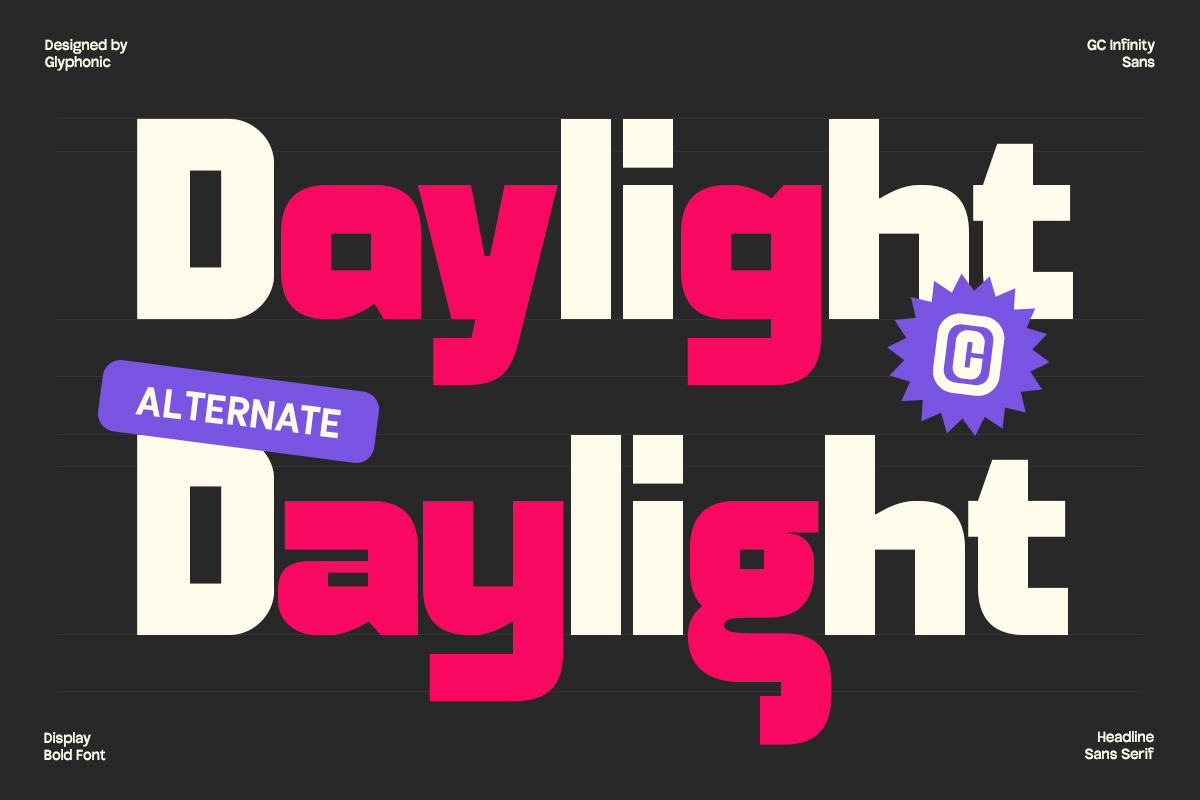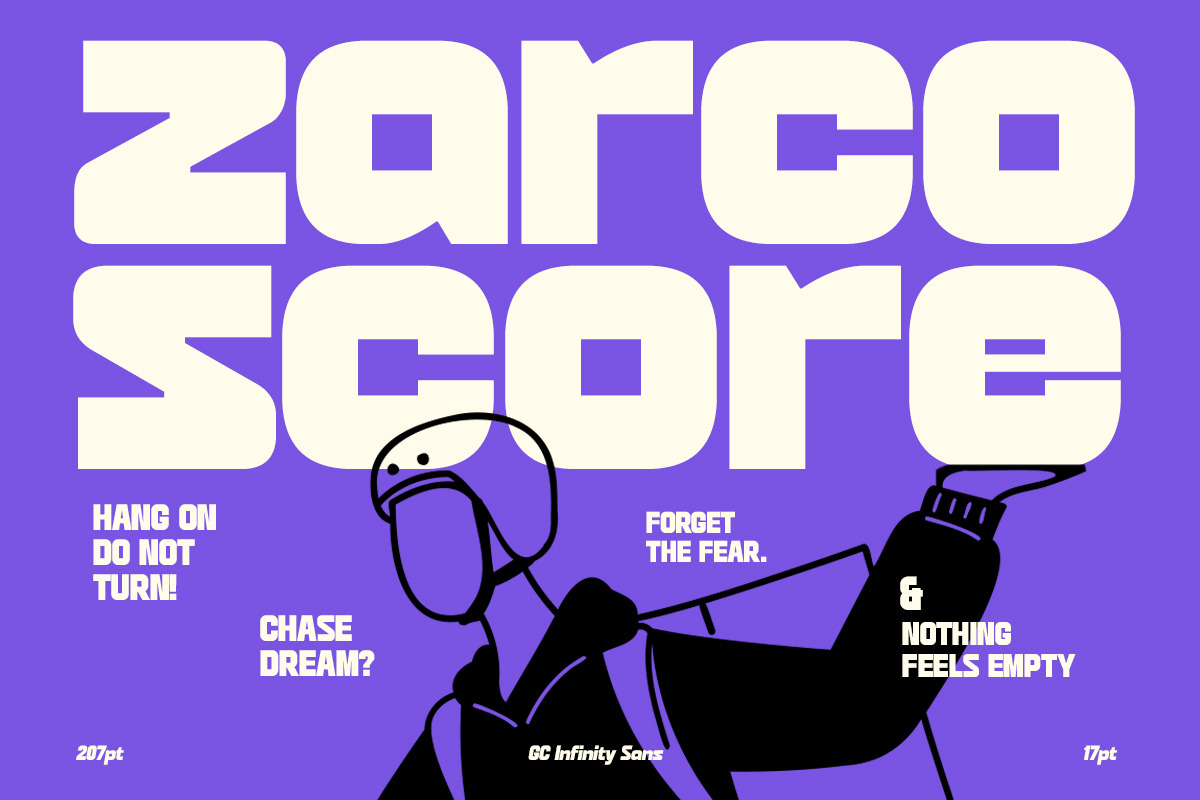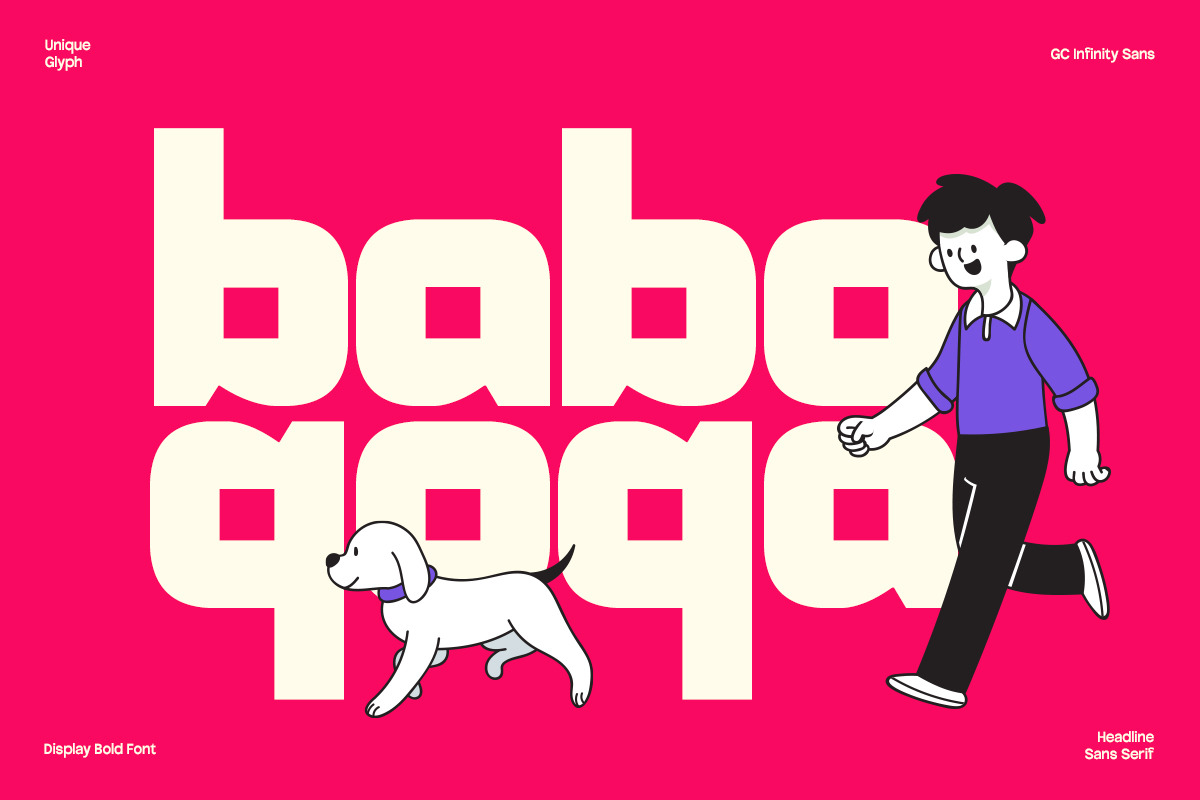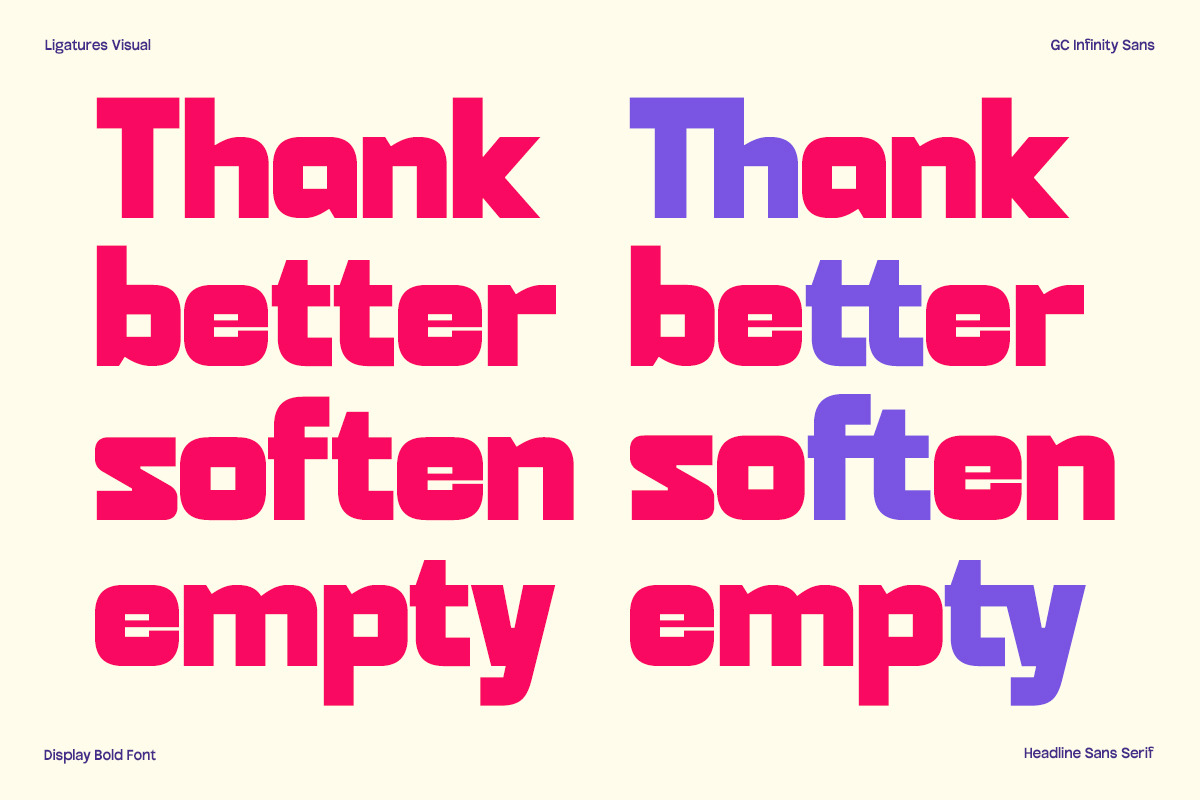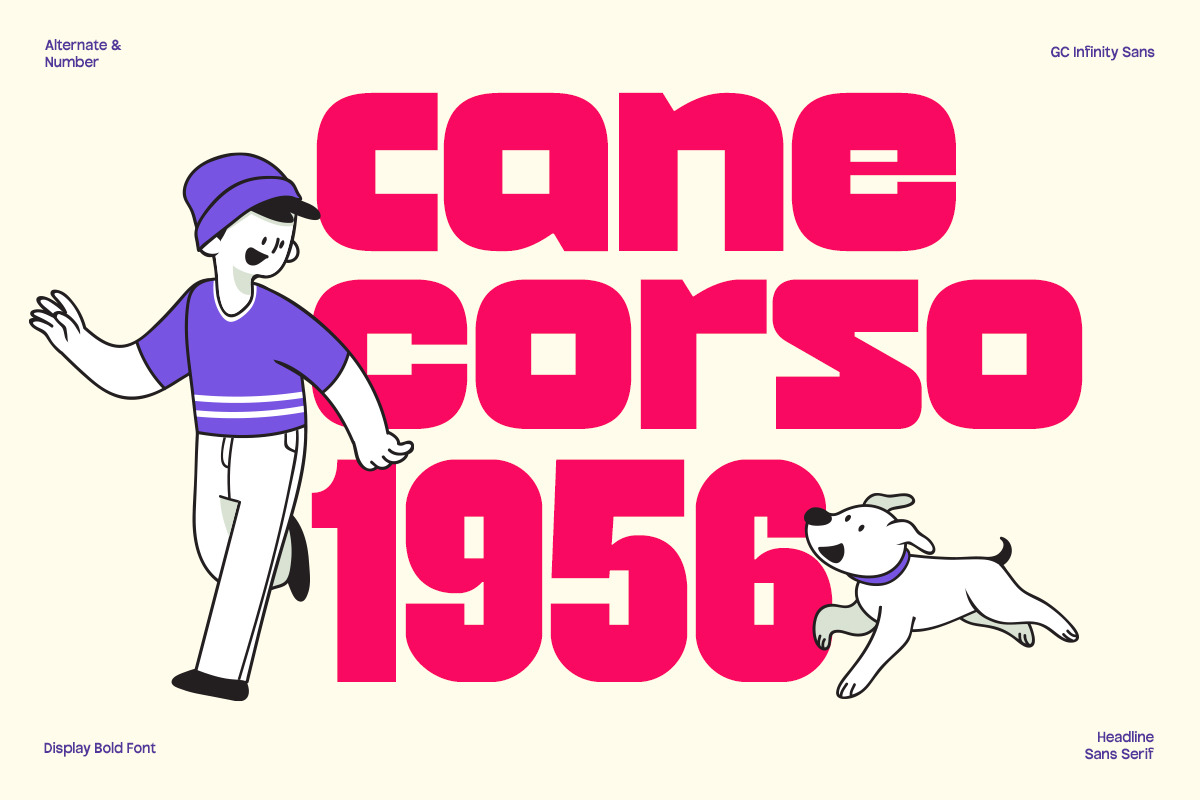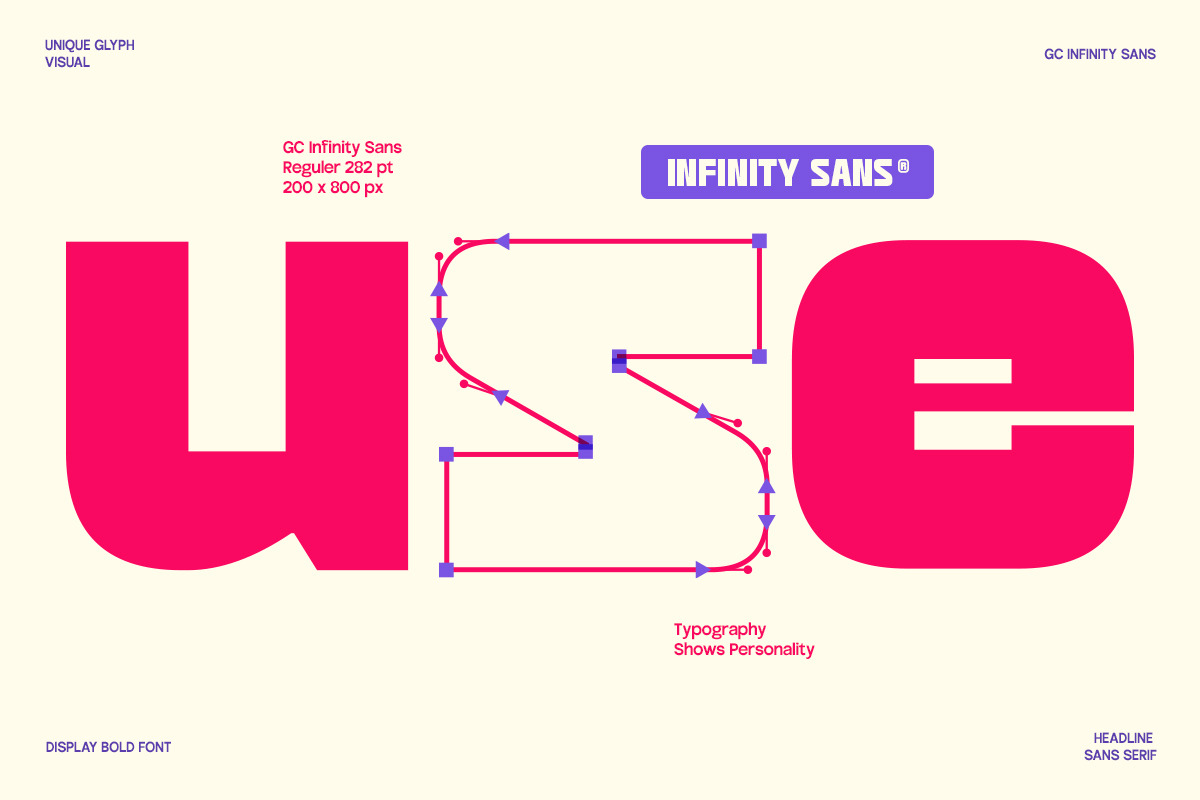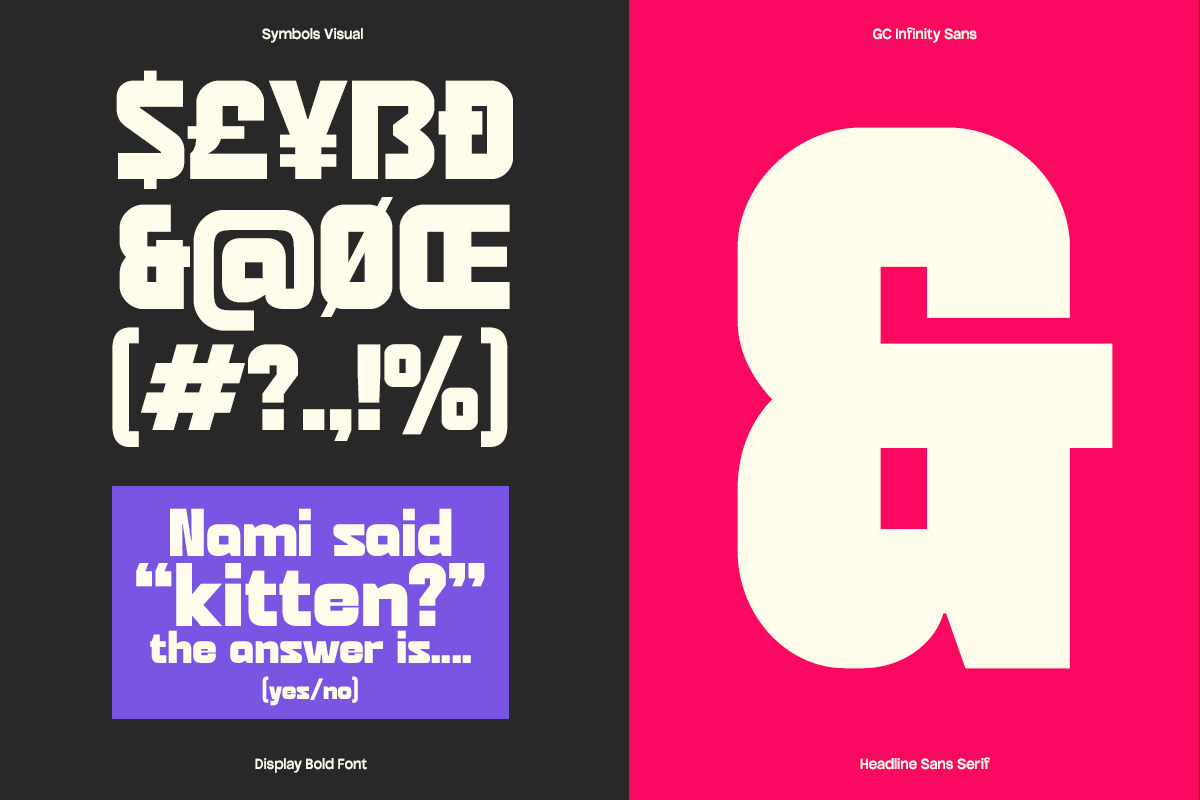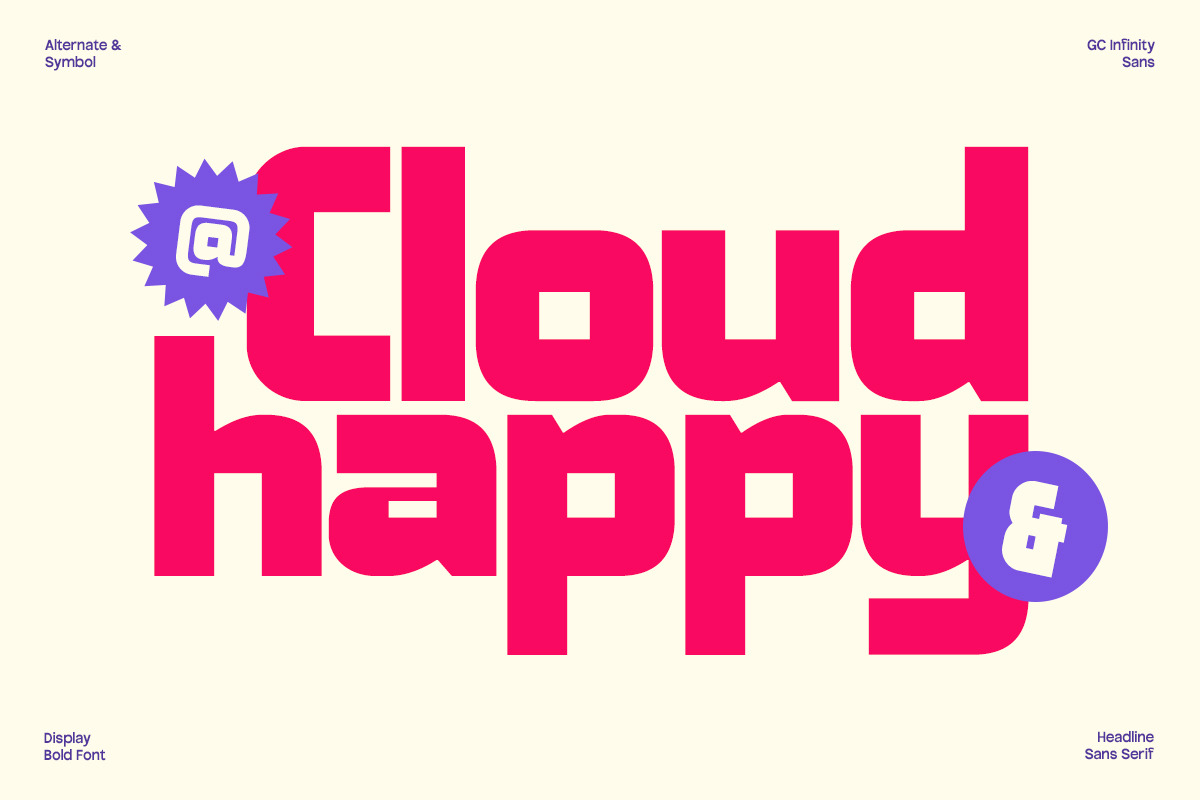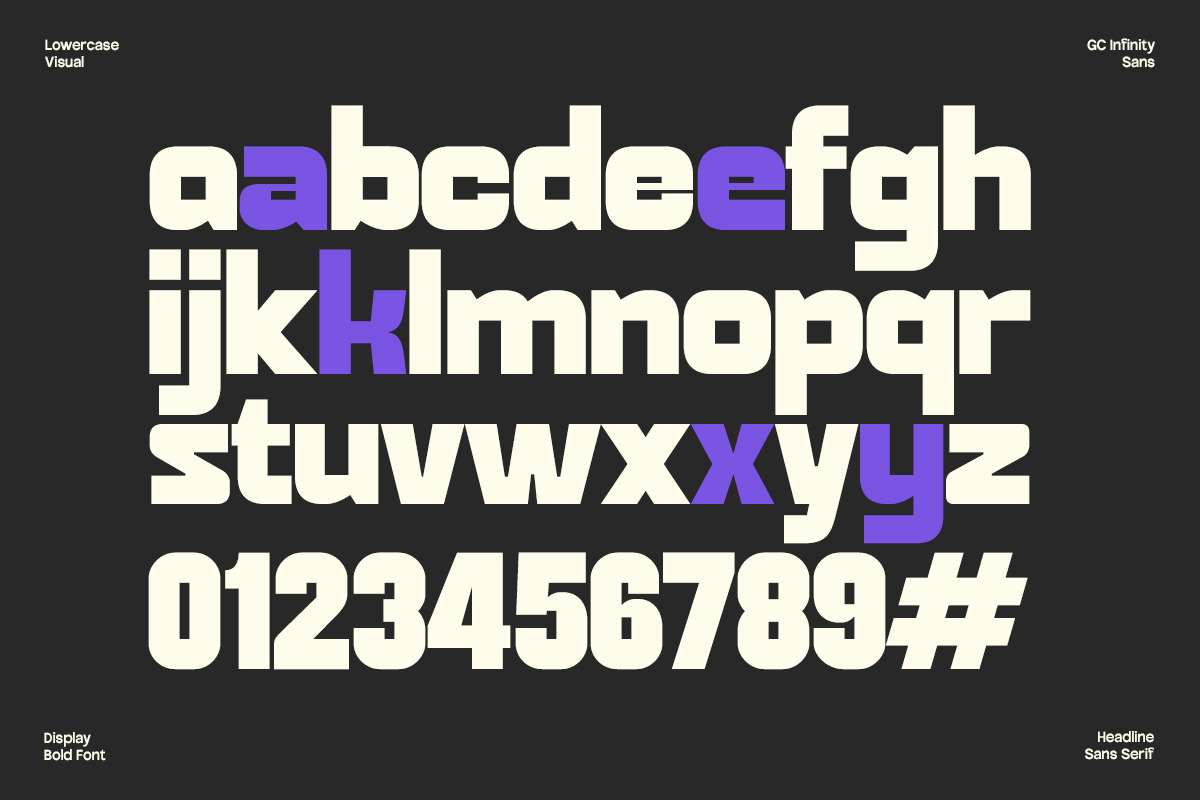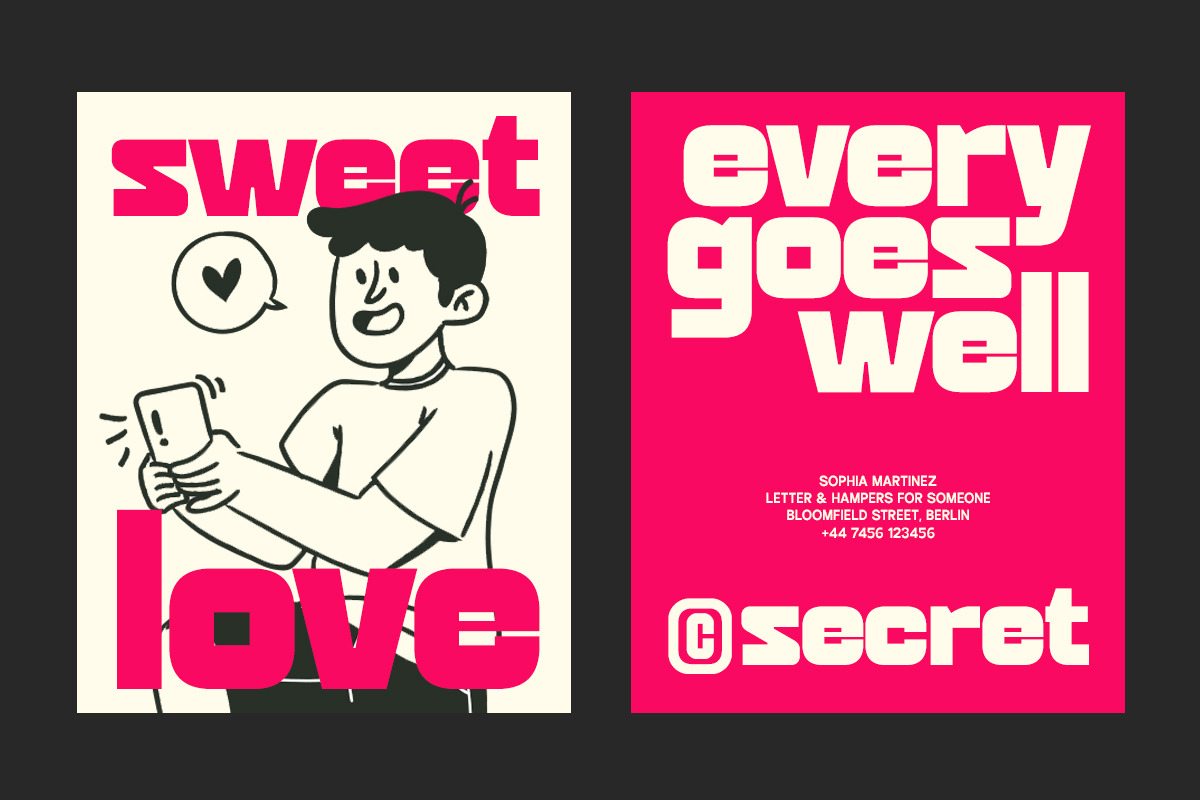
GC Infinity - Display Bold Sans
GC Infinity is a bold display sans-serif font that combines striking modernism with a strong geometric structure. Designed to command attention, it blends boldness and clarity, making it ideal for impactful headlines, statement branding, logo design, editorial titles, and bold packaging.
With its thick, solid letterforms, minimal contrast, and clean curves, GC Infinity delivers a sense of power and simplicity in one unified design. The characters are carefully spaced and constructed to give a sense of balance and visual strength—perfect for tech, sports, urban, and fashion-related visuals.
- Ligatures & Stylistic Alternates